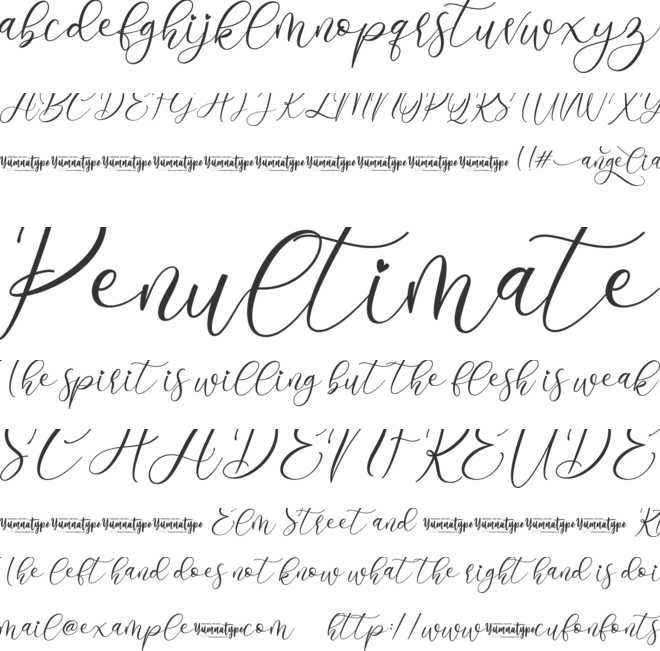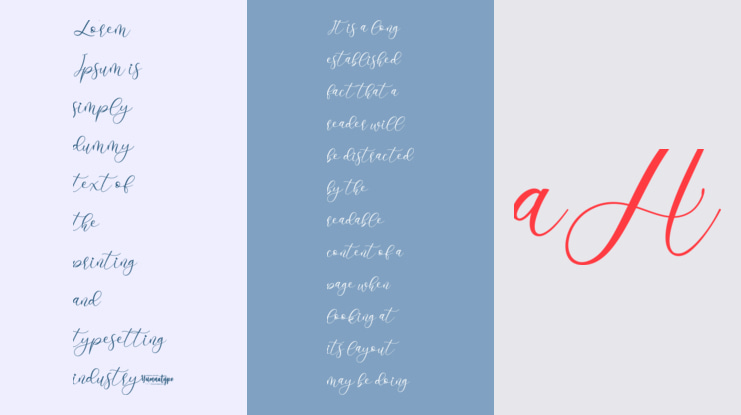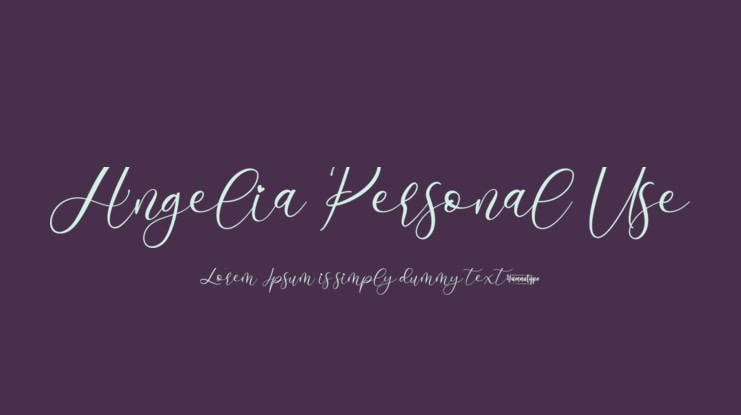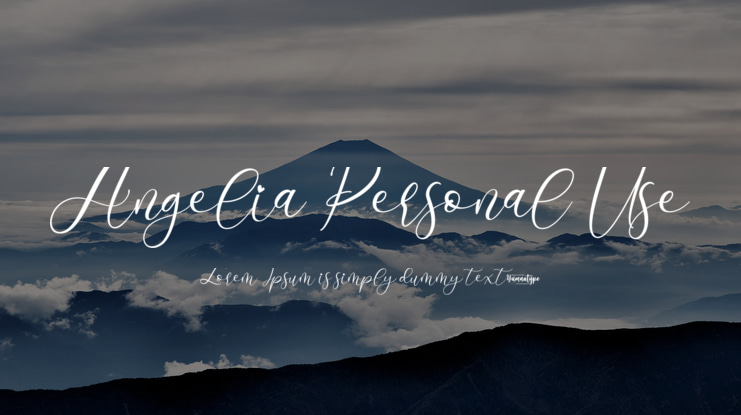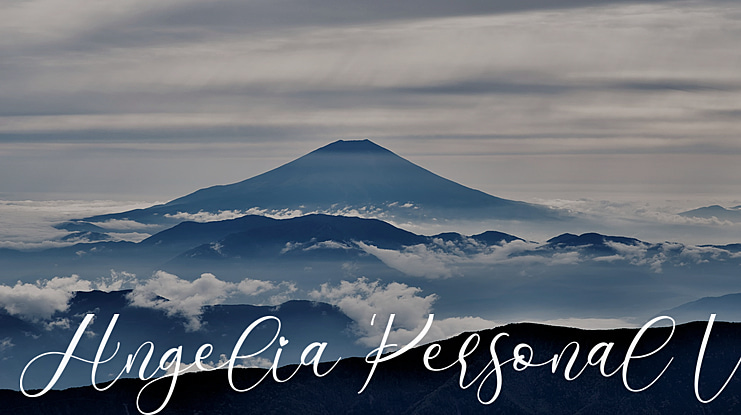
Product Description :
Say hello to Angelia – Lovely Script.
Angelia is beautiful and modern script.
It brings a beautiful and modern typeface that best used for weddings, branding, logotype, and quotes.